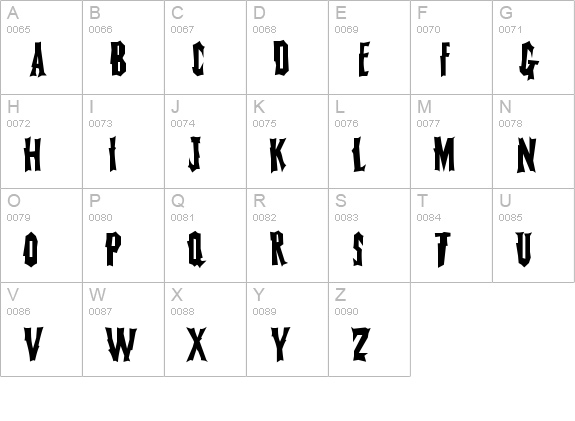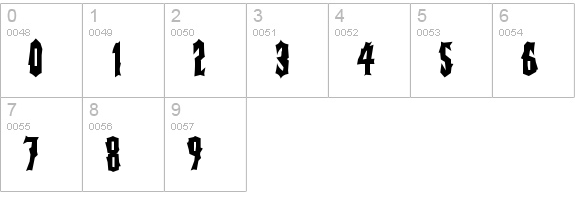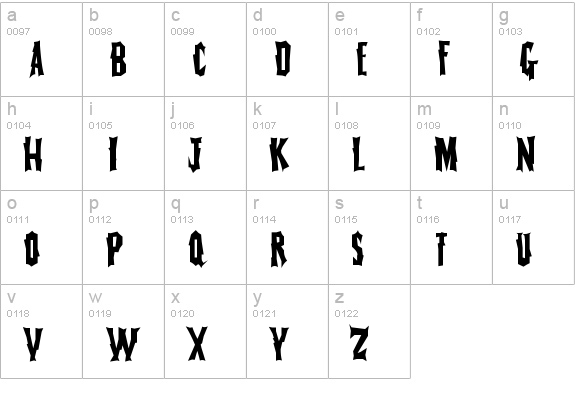
FearlessVampireKiller is a bold and striking font that exudes a sense of mystery and intrigue. With its sharp edges and gothic-inspired design, this font is perfect for projects that require a touch of darkness and sophistication. Whether you're working on a horror-themed poster, a fantasy novel cover, or a Halloween event flyer, FearlessVampireKiller is sure to make a statement. What makes FearlessVampireKiller even more appealing is that it is available for free download at FontsMarket.com. This means you can easily add this unique font to your collection without any cost. Don't miss out on the opportunity to enhance your designs with this captivating and versatile typeface. Download FearlessVampireKiller font today and unleash your creativity!